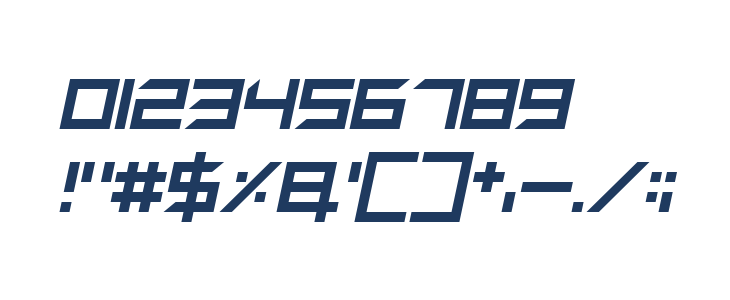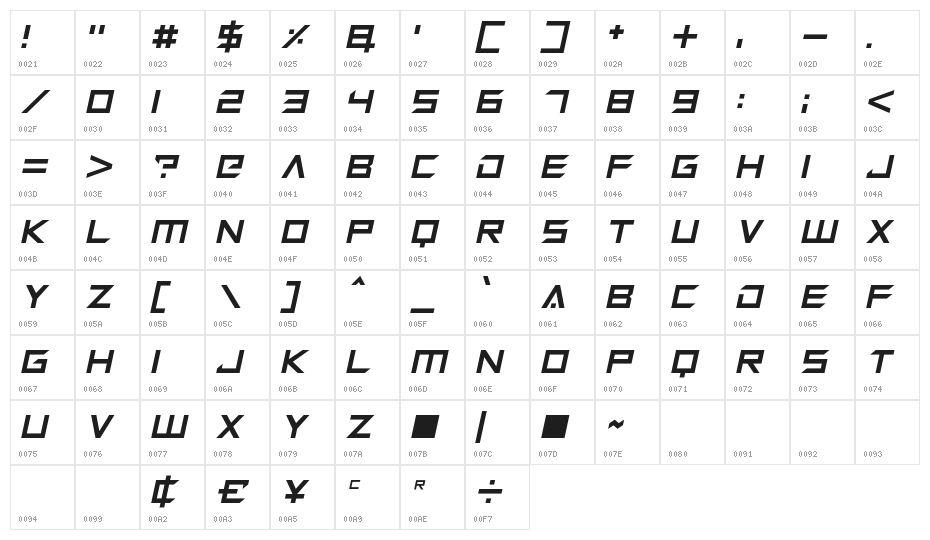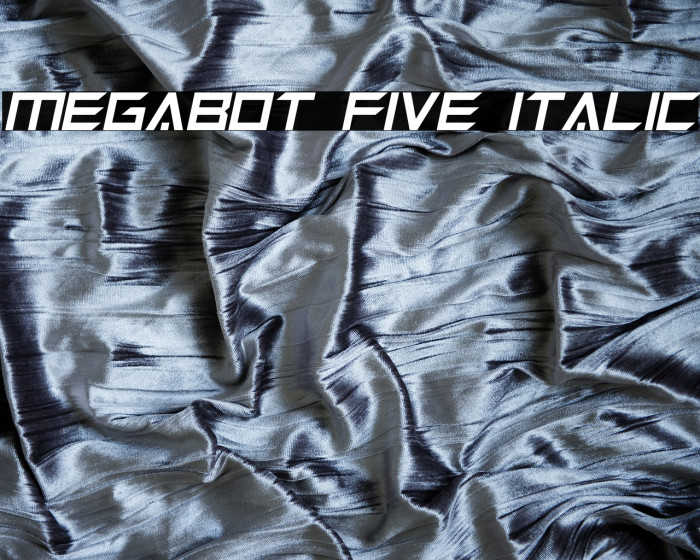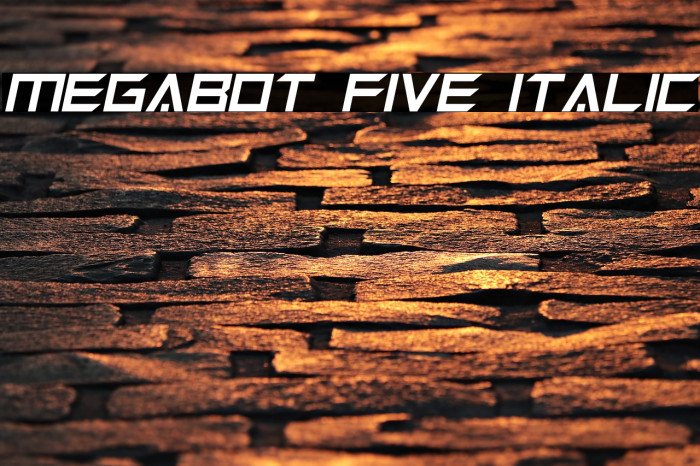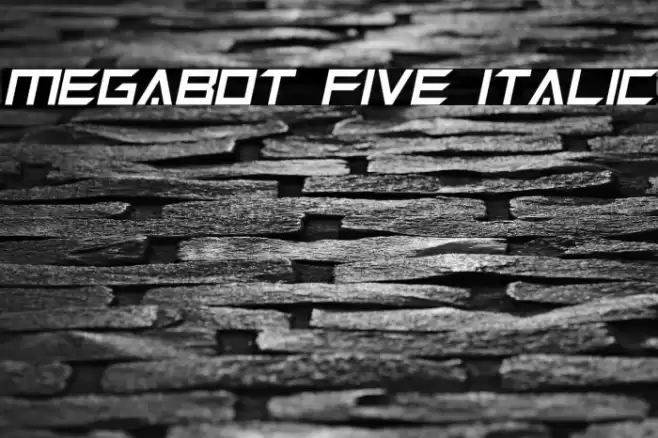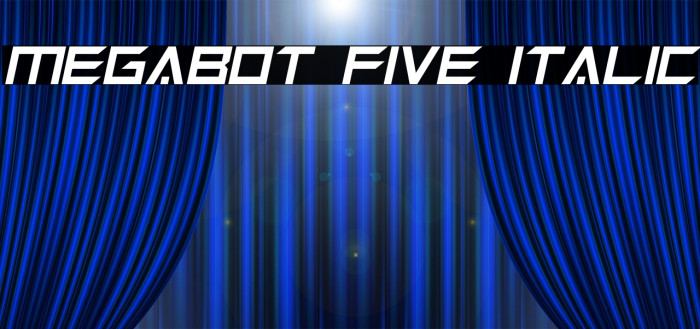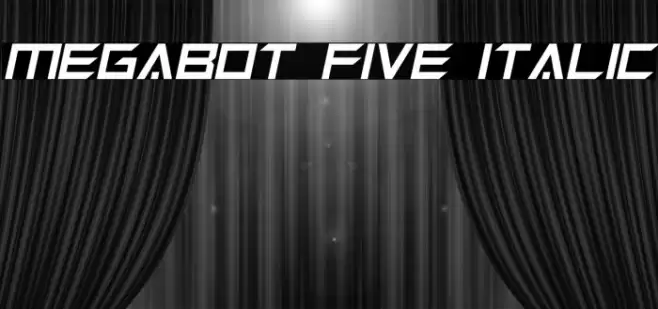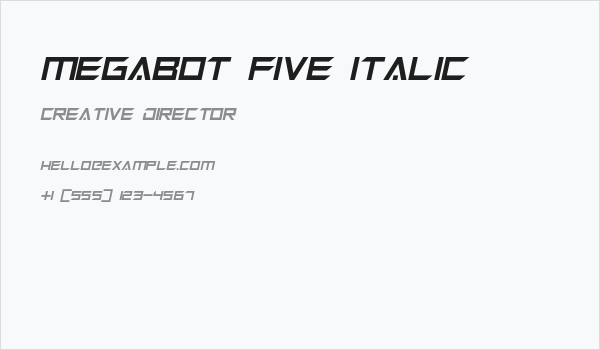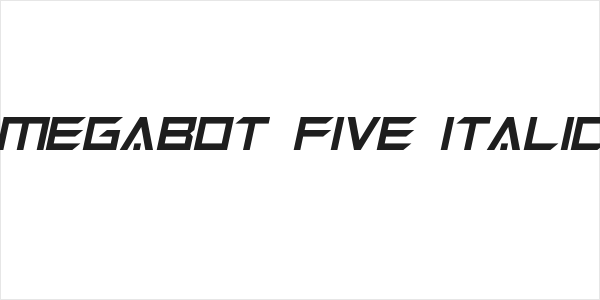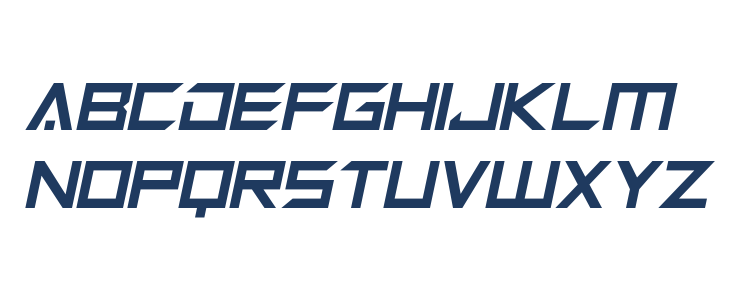
Megabot Five Italic Font
Megabot Five Italic Description
This font features a futuristic and angular design, characterized by sharp edges and a dynamic slant that gives it a sense of motion and speed. The uppercase and lowercase letters maintain a consistent geometric style, with each character displaying a unique, stylized form that enhances its modern appeal. The numbers and special characters follow the same design principles, ensuring uniformity across all glyphs. The font's bold weight and italicized form contribute to its striking appearance, making it suitable for projects that require a strong visual impact.
| Proposed Projects | Ideal for sci-fi themed projects, video game titles, tech branding, and futuristic posters. |